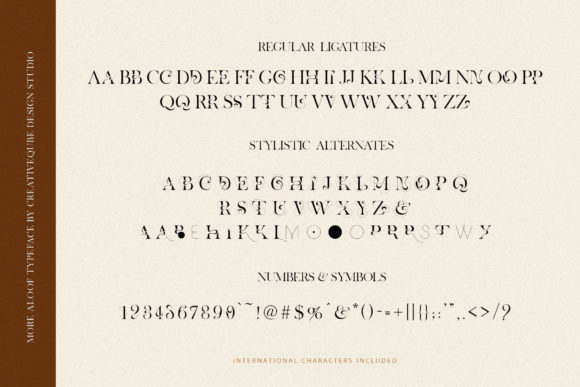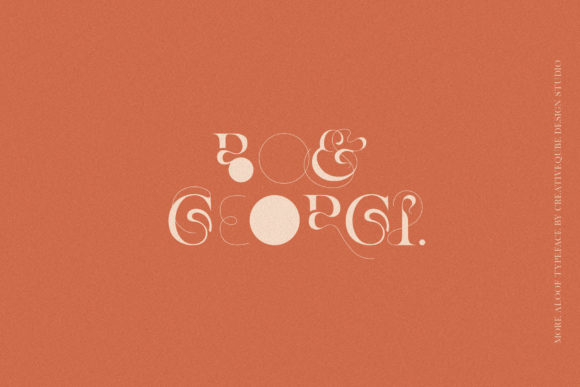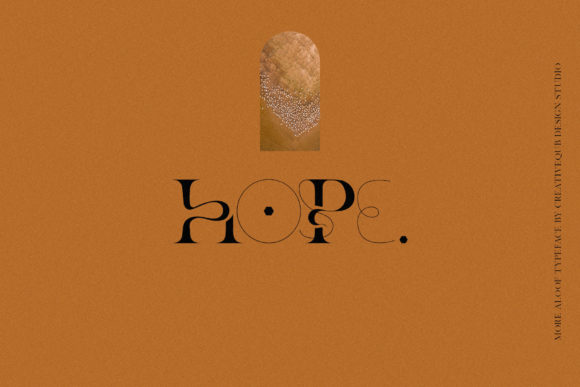
Introduction to More Aloof Font
More Aloof is a genuine vintage serif font loaded with alternates that makes for stunning logos, quotes, wedding invites, blog posts, Instagram, and more.
Key Features of More Aloof Font
Why Choose More Aloof Font?